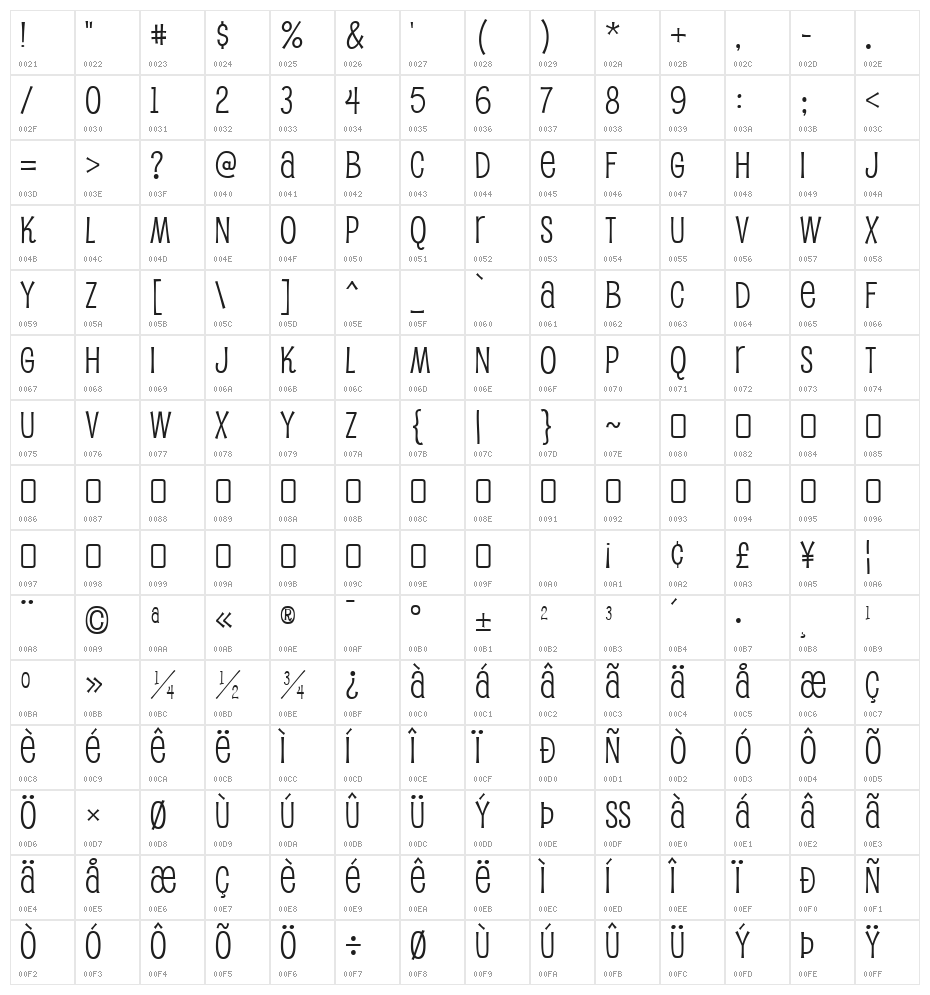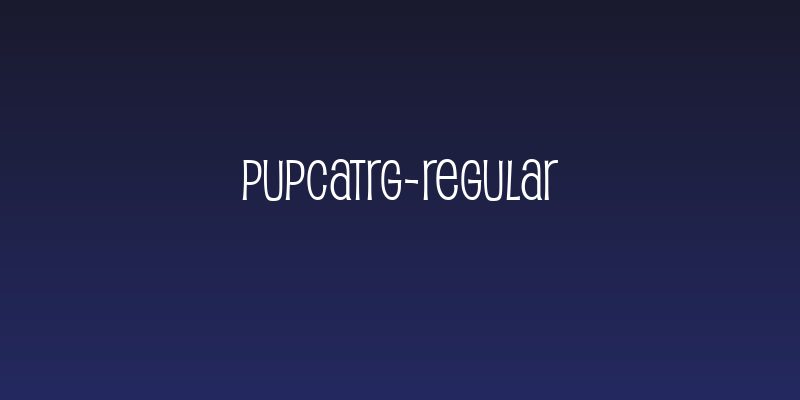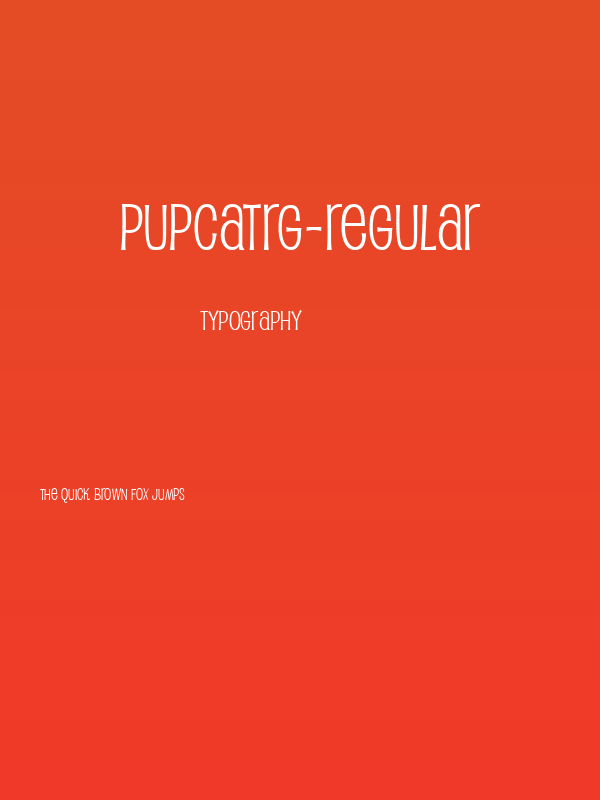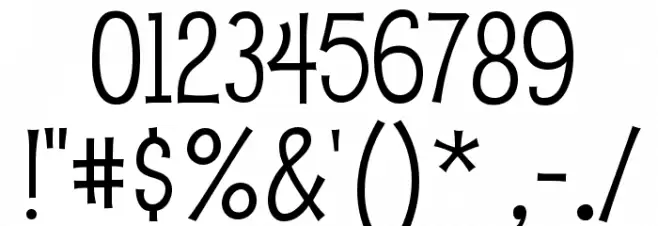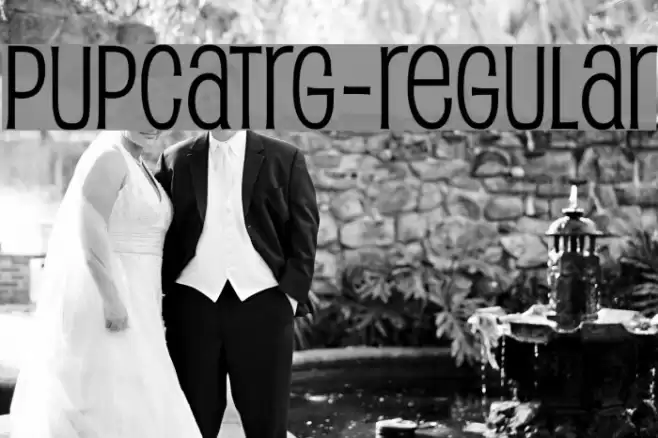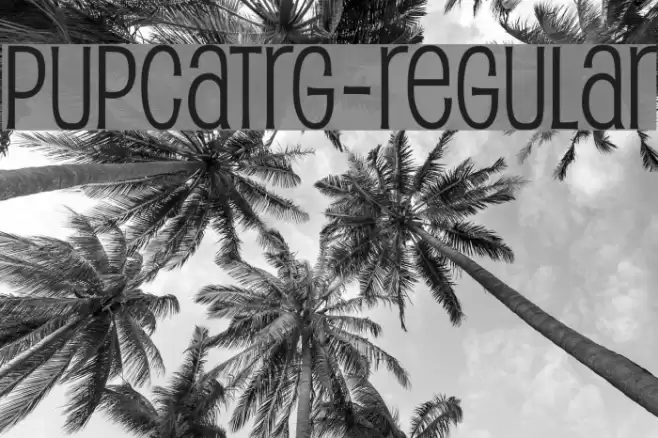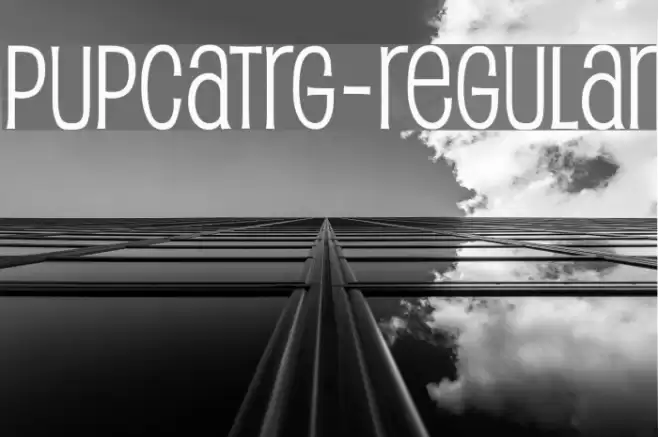
PupcatRg-Regular Font
PupcatRg-Regular Description
This font features a playful and modern design with a unique blend of geometric and organic shapes. The letters are tall and narrow, giving it a condensed appearance, which is balanced by rounded edges and smooth curves. The uppercase and lowercase letters maintain a consistent style, while the numerals and special characters complement the overall aesthetic. The font's clean lines and minimalistic approach make it versatile for various design applications.
| Proposed Projects | Ideal for branding, packaging, children's books, and modern web design. |